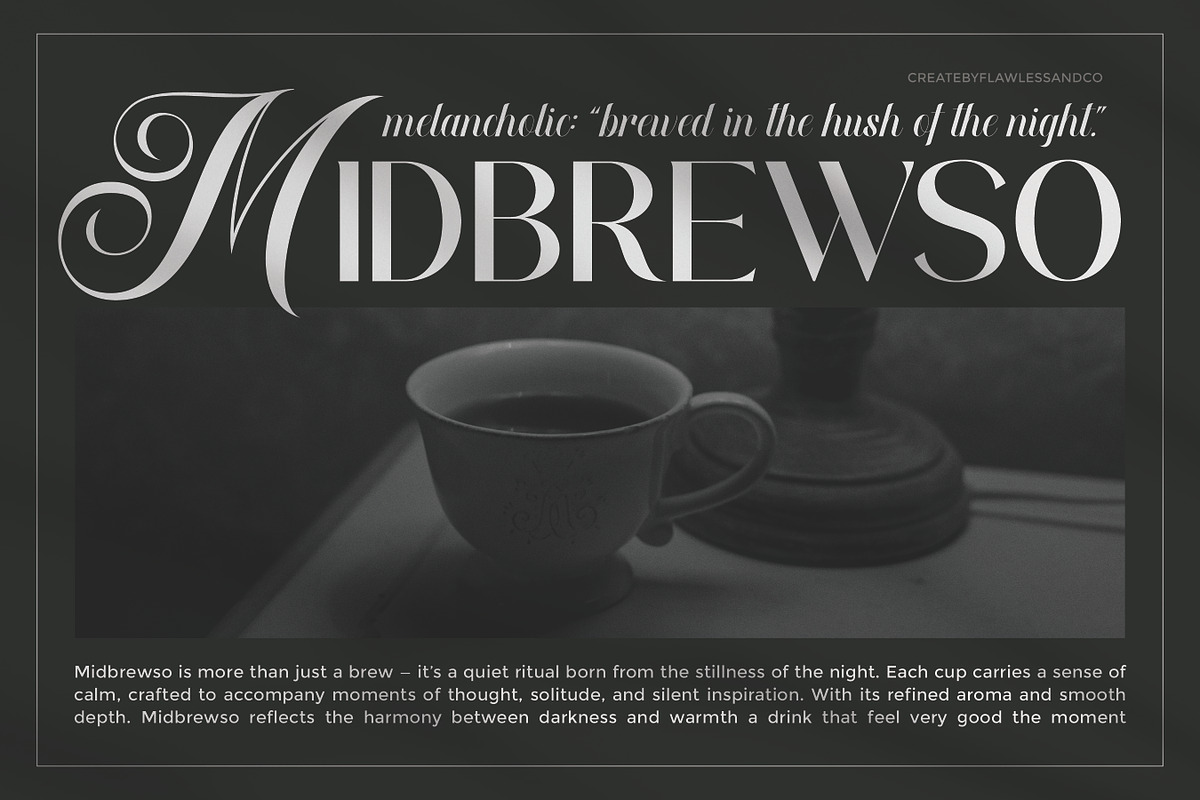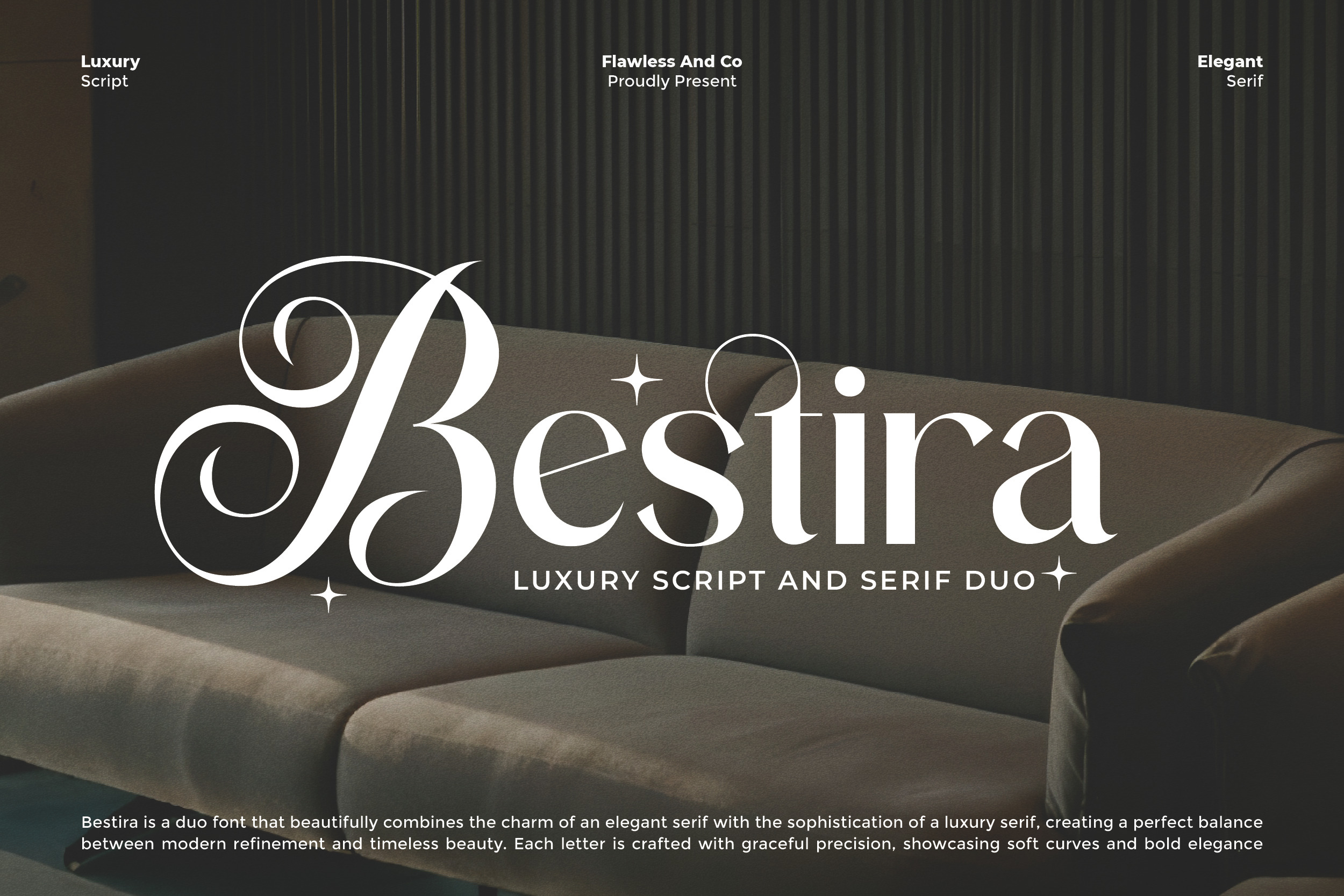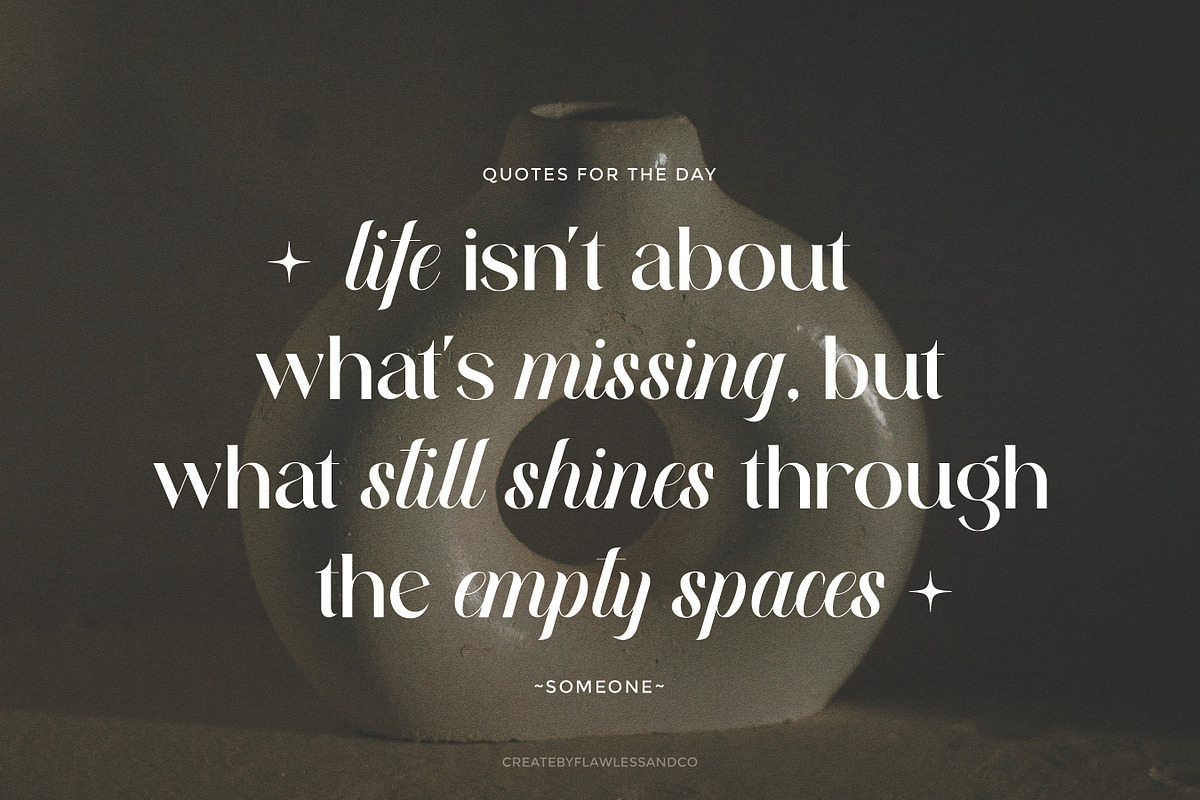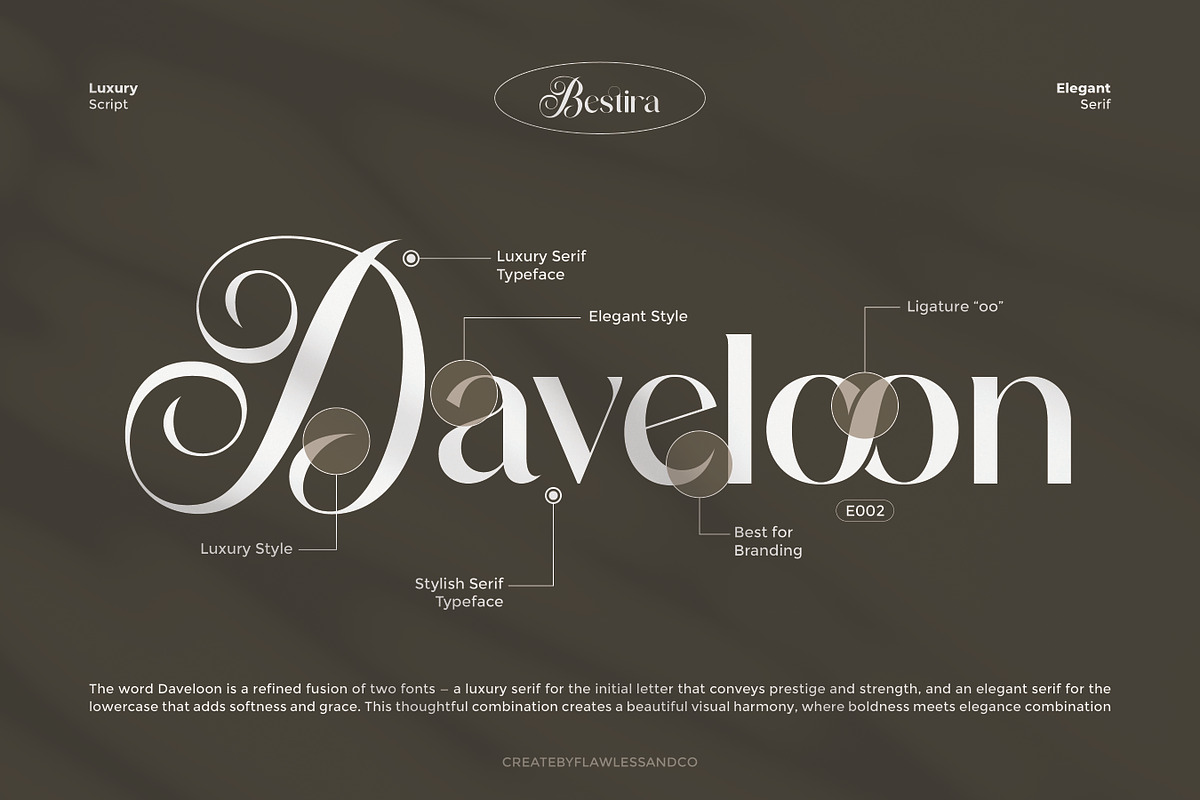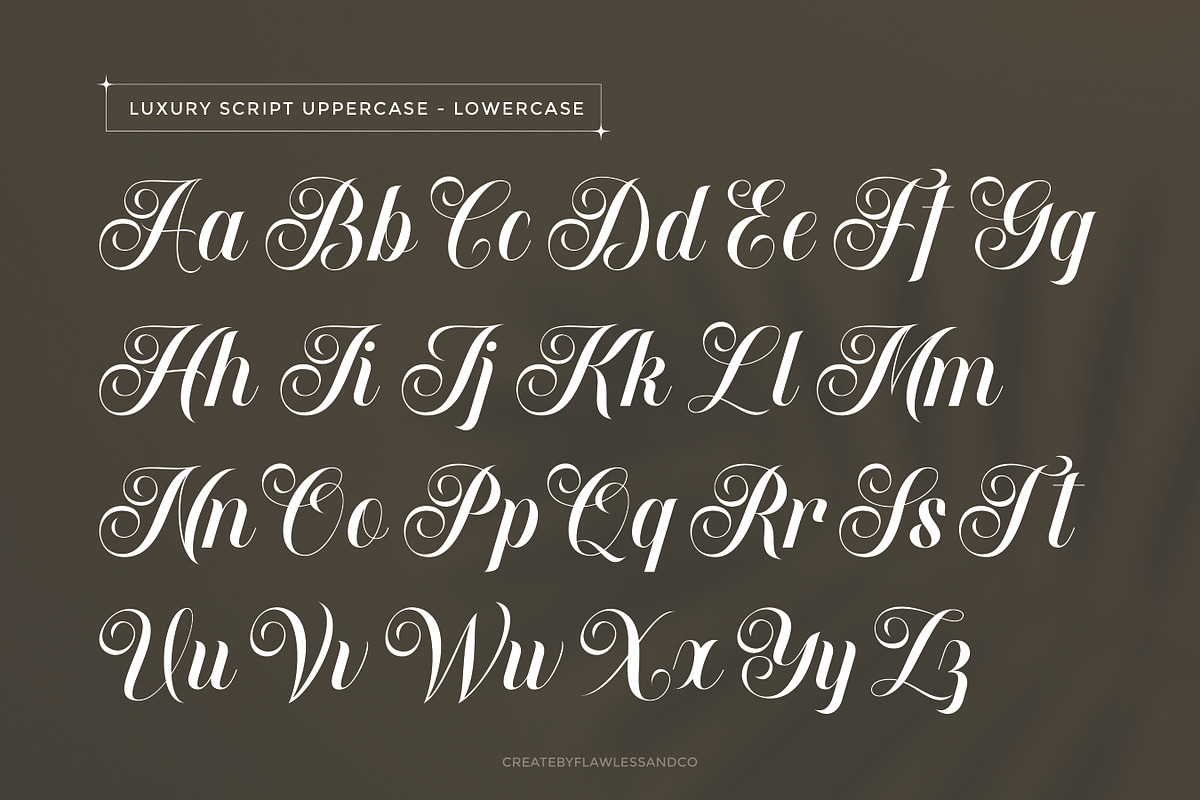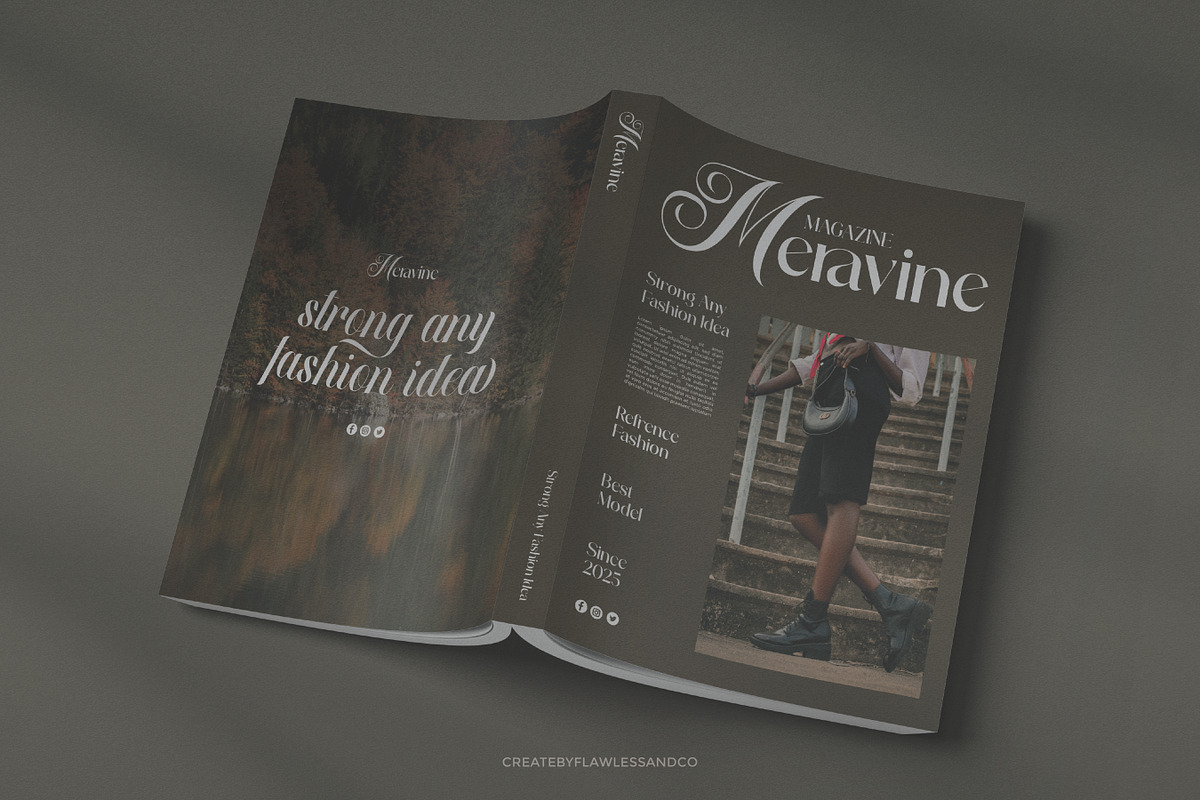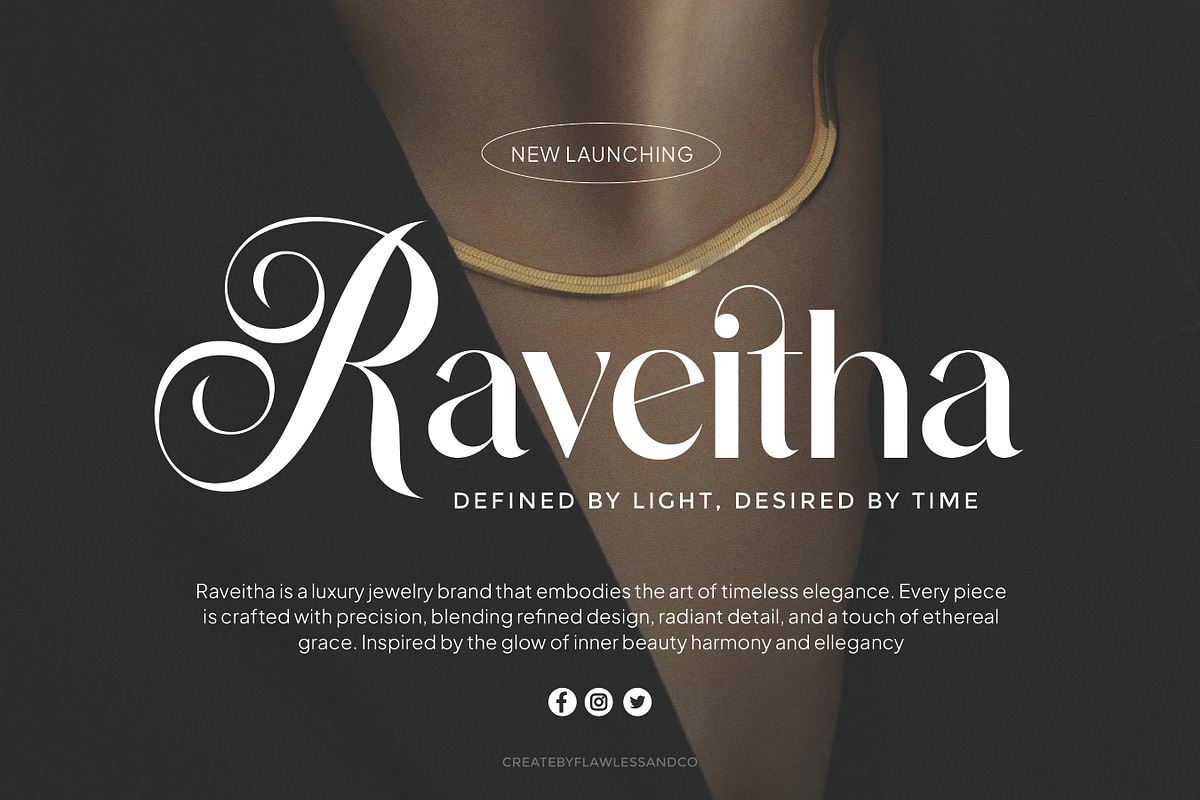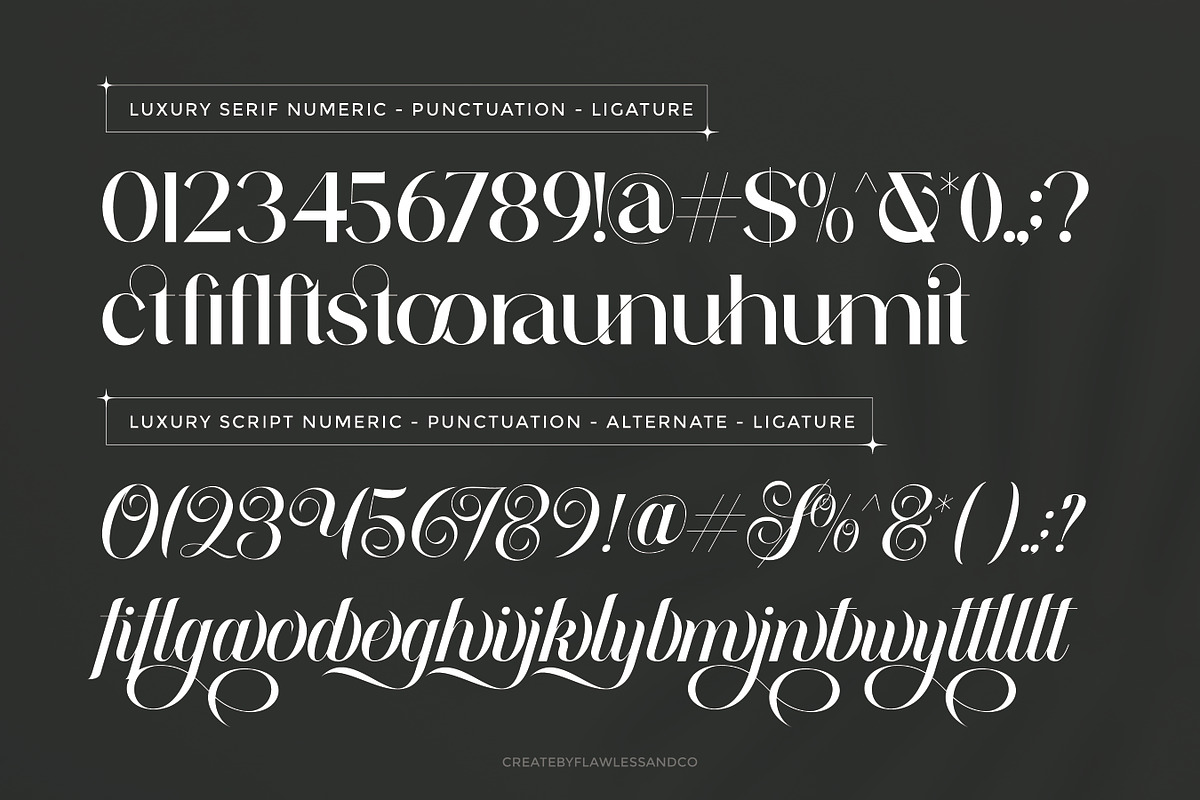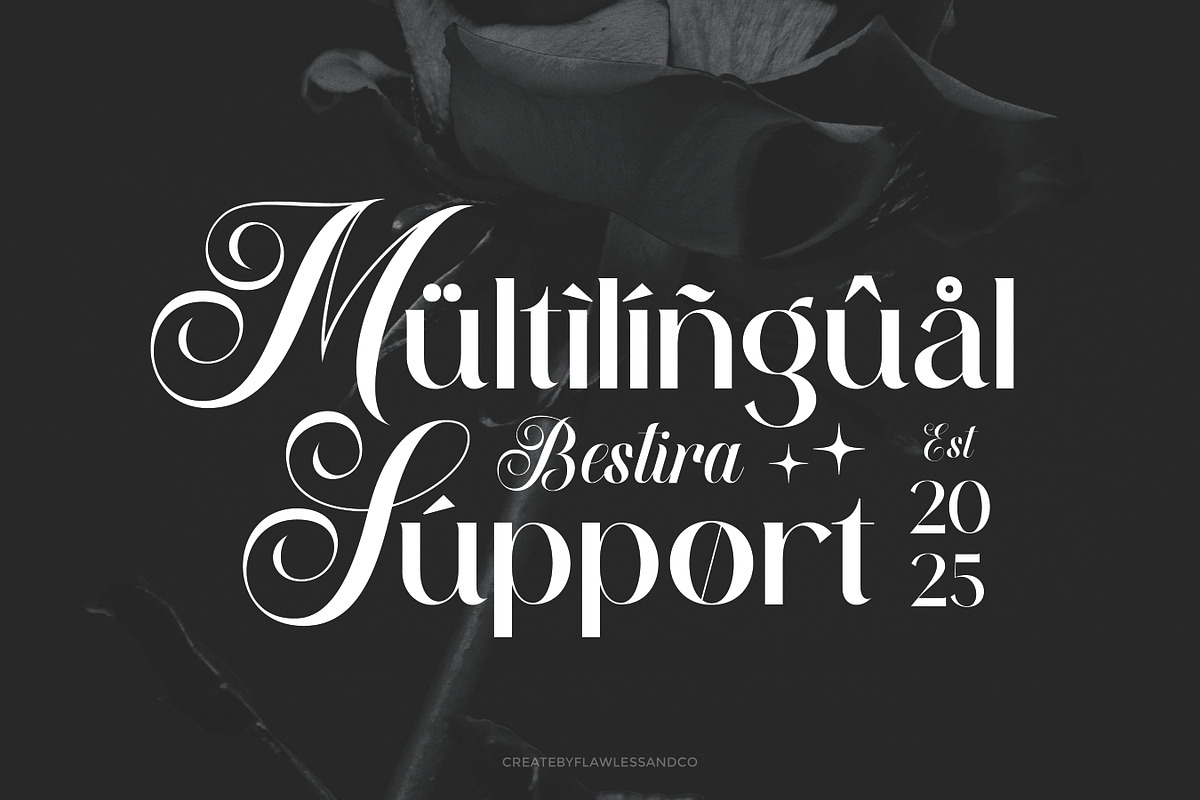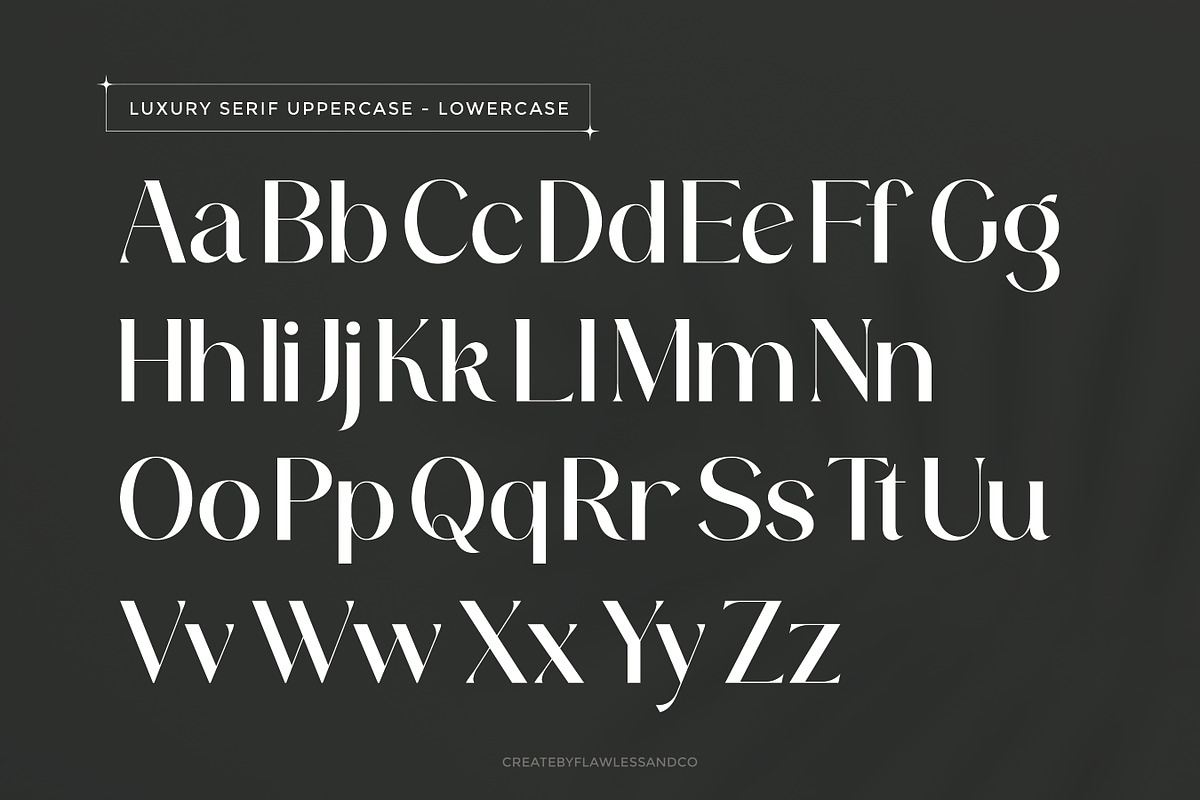
Bestira - Script And Serif Duo Font
Bestira - Luxury Script and Serif Duo Font
Bestira is a luxury duo typeface that harmoniously blends the grace of an elegant serif with the sophistication of a refined script. Designed to embody both timeless charm and modern luxury, Bestira creates a seamless balance between soft curves and confident structure. Each character is crafted with meticulous detail—delivering high contrast, fluid strokes, and graceful precision. Whether used together or separately, the serif and script styles of Bestira elevate any design with effortless refinement and beauty. Perfect for designers seeking elegance, sophistication, and lasting visual impact.
Who Should Use “Bestira”?
Bestira is designed for creatives, designers, and brands who value sophistication and timeless beauty in their visual identity. It’s the perfect choice for those who seek to combine luxury with modern design aesthetics. Whether you’re a fashion designer crafting high-end branding, a creative director developing editorial layouts, or a business owner aiming to elevate your brand presence, Bestira brings an exclusive, polished touch that speaks of elegance and refinement.
A Must-Have Font for "Brand and Logo" Creators and Designers
Bestira is more than just a typeface — it’s a statement of luxury and style. Perfectly crafted to elevate visual identities, Bestira allows brand and logo designers to create designs that feel timeless, graceful, and exclusive. Its refined serif and sophisticated script pairing make it ideal for high-end branding that demands both elegance and individuality.
Why Choose Bestira for "Brand and Logo" Projects?
Bestira offers the perfect harmony between sophistication and versatility. Its combination of elegant serif and luxurious script provides endless creative possibilities for crafting distinctive brand marks, refined logos, and timeless visual identities. Whether you’re designing for fashion, beauty, or lifestyle brands, Bestira ensures your work stands out with charm, class, and modern refinement.
Suitable For:
- Luxury brand identities and elegant logo design
- Fashion, beauty, and lifestyle branding projects
- Editorial layouts, magazines, and packaging design
- Wedding invitations and stationery concepts
- Social media visuals and advertising materials
- Boutique product labels and high-end merchandise